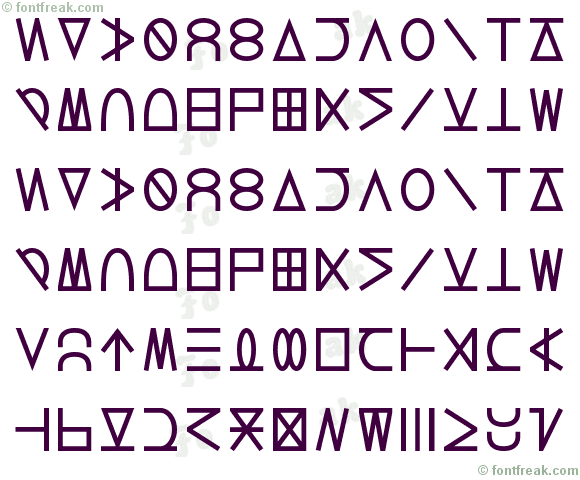
Lucius Cipher
About Lucius Cipher
Lucius Cipher by GGBot is a striking display font that showcases a unique blend of modern design and artistic flair. Characterized by its bold, geometric shapes and clean lines, this font falls into the category of display typefaces, making it perfect for attention-grabbing applications. The stroke weight is consistent, offering a sturdy presence, while the lack of unnecessary flourishes keeps the visual style streamlined and contemporary. The spacing between the characters is well-considered, ensuring legibility while maintaining an aesthetic appeal that is both futuristic and engaging.
The Lucius Cipher font free download is ideal for a variety of creative projects. Its distinctive appearance makes it particularly suited for movie posters, where it can draw attention and convey a sense of drama. It can also be effectively used in branding materials for tech startups, lending an innovative vibe to logos and marketing collateral. Additionally, the font is a great choice for graphic designers looking to create eye-catching social media graphics or event promotions. Wedding invitations that aim for a modern twist can also benefit from the boldness of Lucius Cipher.
Targeted primarily at graphic designers, small business owners, and content creators, this font offers versatility across different media. Its unique character shapes encourage users to experiment, providing an exciting tool for those looking to stand out in a crowded market.
What makes Lucius Cipher particularly noteworthy is its ability to combine functionality with artistic expression. It stands out not only for its modern aesthetic but also for its potential to elevate any design project, making it a valuable addition to any designer's toolkit. This font is not just a typeface; it's an invitation to create and innovate.